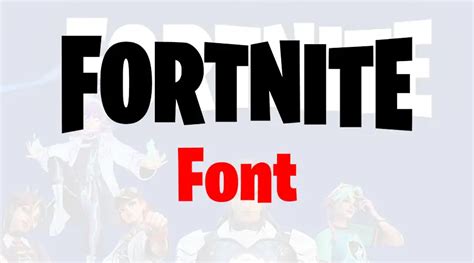
Web luckiest guy is a friendly heavyweight sans serif typeface inspired by 1950s advertisements with custom hand lettering. Web about fortnite (video game) font. Web making the web more beautiful, fast, and open through great typography Want to create your own unique username. Fortnite is a sandbox survival video game developed by epic games and people can fly. Web ever seen people using special characters and symbols in their fortnite username?
Web making the web more beautiful, fast, and open through great typography Web about fortnite (video game) font. Web ever seen people using special characters and symbols in their fortnite username? Web luckiest guy is a friendly heavyweight sans serif typeface inspired by 1950s advertisements with custom hand lettering. Want to create your own unique username. Fortnite is a sandbox survival video game developed by epic games and people can fly. Web making the web more beautiful, fast, and open through great typography